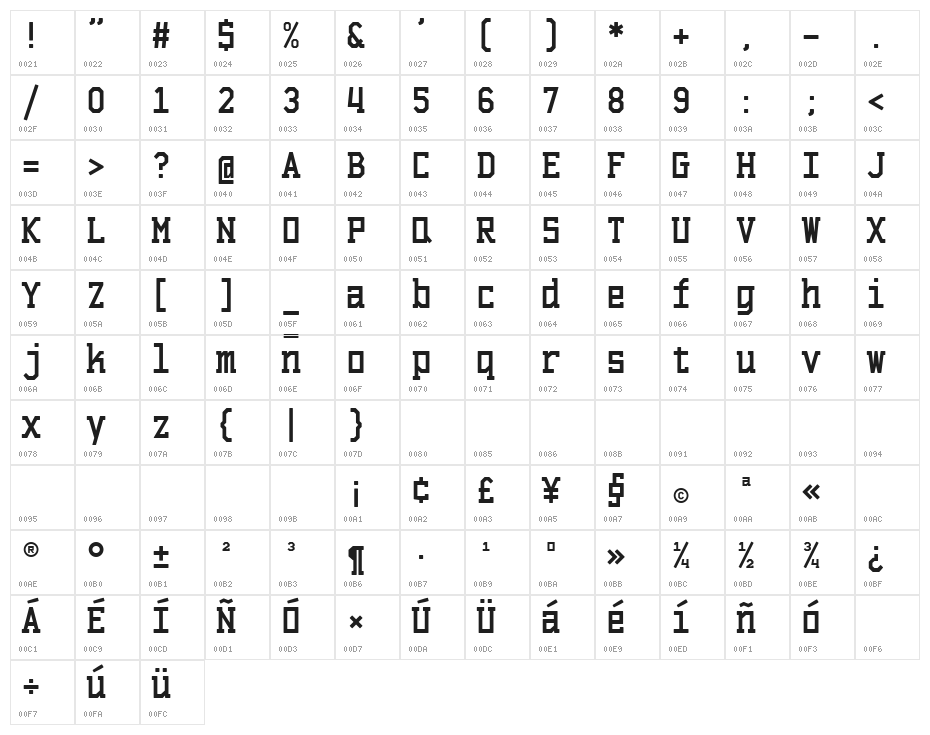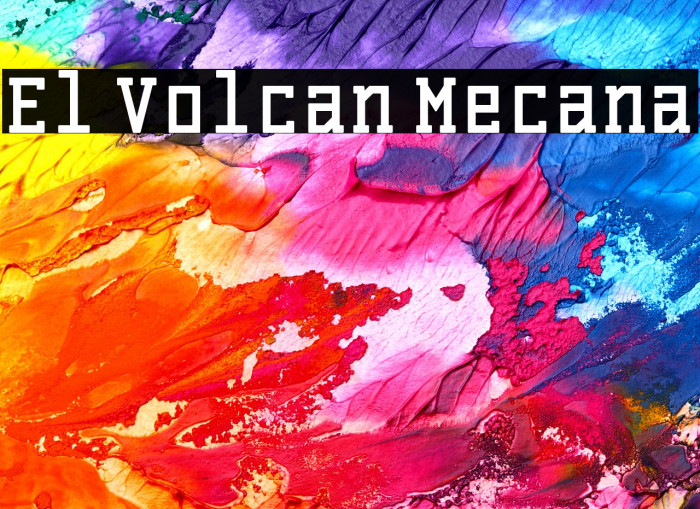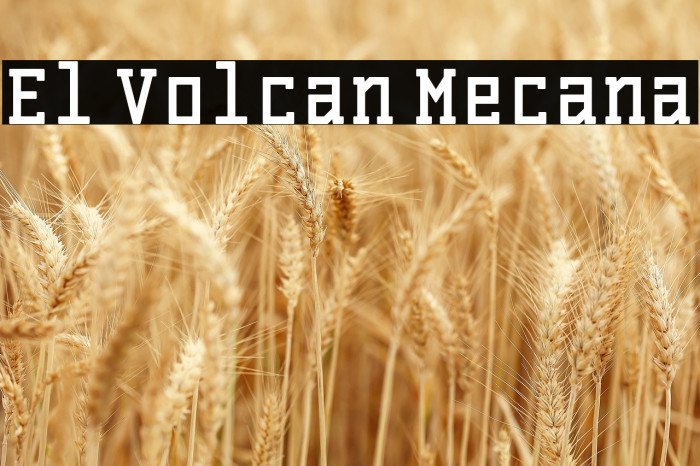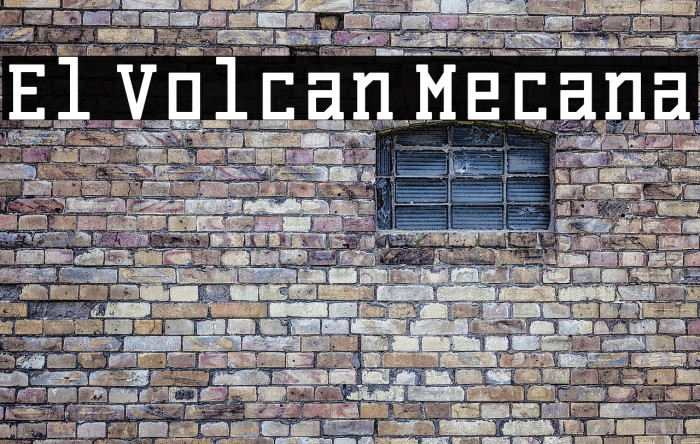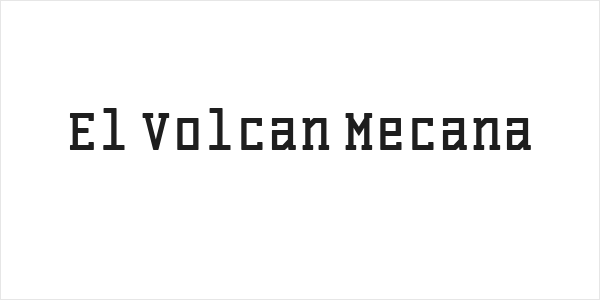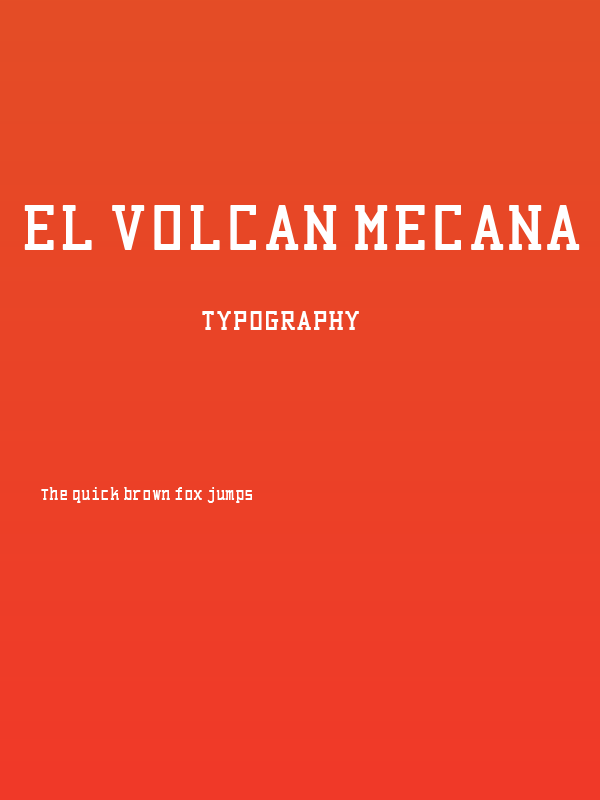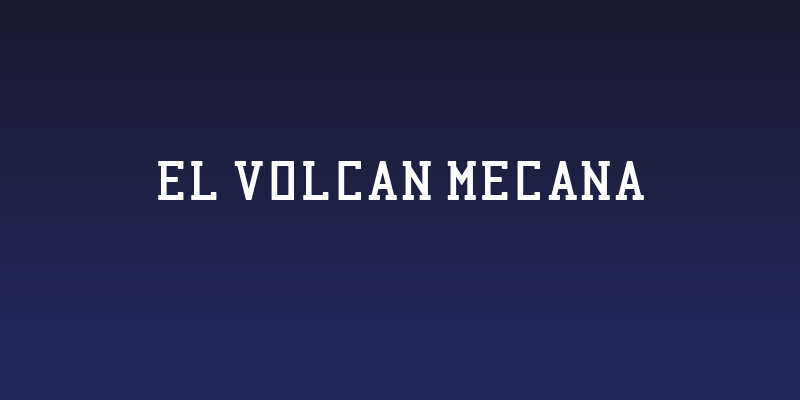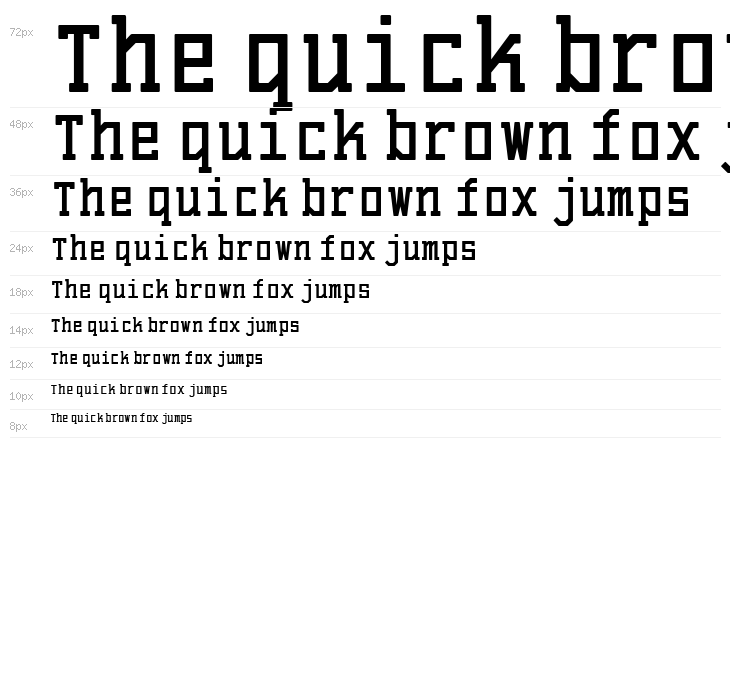
El Volcan Mecana Font
El Volcan Mecana Description
This typeface features a bold, geometric design with a strong industrial influence. The characters are constructed with uniform stroke widths, giving it a mechanical and robust appearance. The uppercase letters are particularly striking, with angular edges and a blocky structure that conveys strength and stability. The lowercase letters maintain the same geometric style, ensuring consistency across the typeface. Numbers and special characters follow the same design principles, making them easily legible and visually cohesive. The overall style is reminiscent of typefaces used in technical or engineering contexts, where clarity and precision are paramount.
Overall StyleIndustrial, Mechanical
Use CaseHeadlines, Logos, Technical documents
Proposed ProjectsIdeal for technical manuals, engineering documents, industrial-themed branding, and signage.